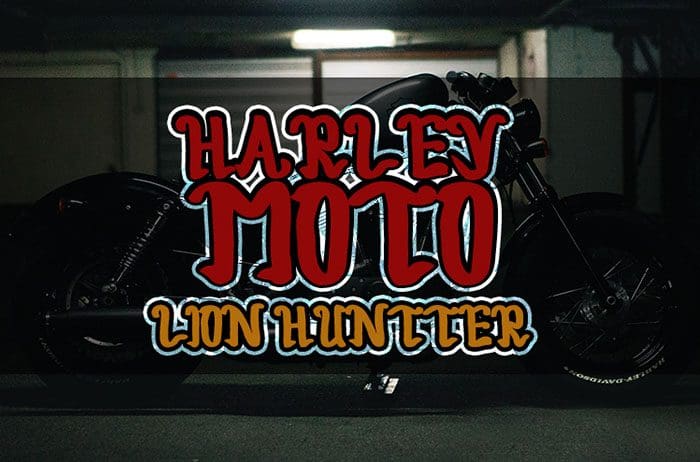
Harley Moto handwritten font embodies fun, quirkiness and authenticity. This enchanting font will turn any creative idea into a true standout. Designed this font by Inermedia Studio. You can also search more freeĀ Handwritten Fonts.